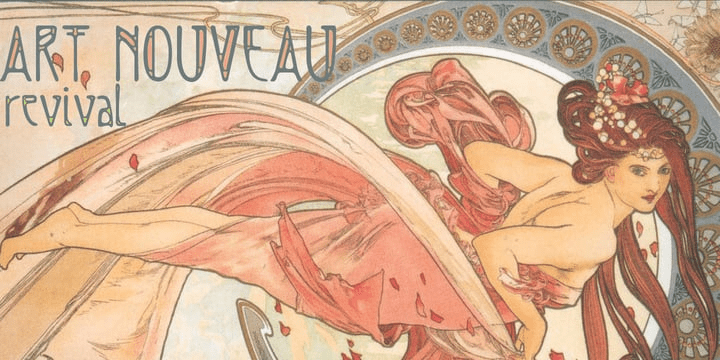
Art Nouveau SCF
About Art Nouveau SCF
The Art Nouveau styles of the the turn of the 20th century (1890 – 1905) exhibited a bold approach to organic lines and lavish decoration. This new style was spread throughout the world and helped usher in a new era that led to modern art and design.…